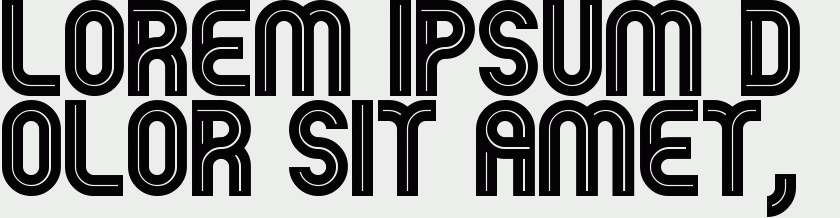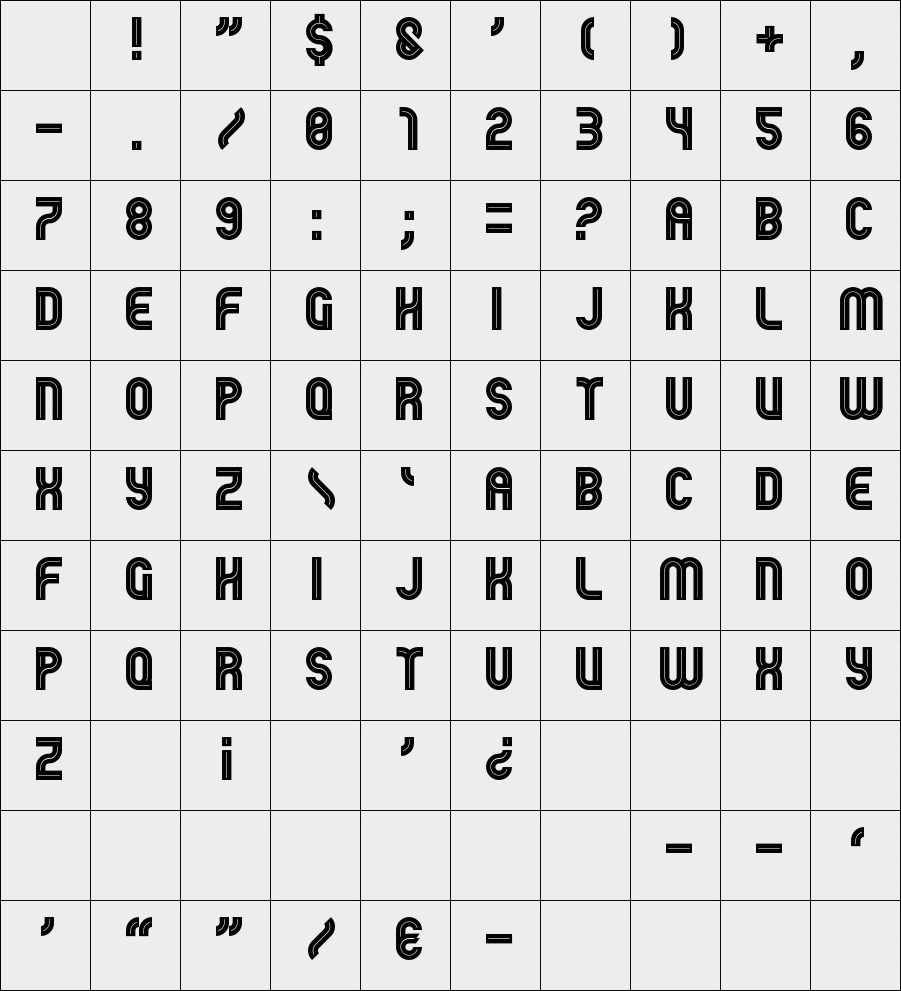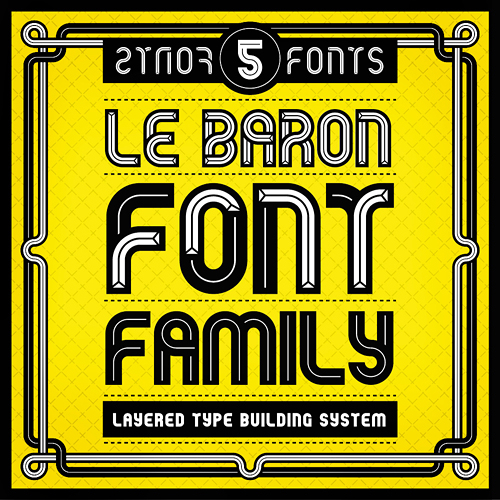
Le Baron Font Family
/ Le Baron Steel
Between 1884 and 1885, William Le Baron Jenney designed the Home Insurance building, the first every skyscraper in the world, as part of the project to rebuild Chicago following the devastating fire which destroyed much of the city in 1871. From then onwards, steel and glass were to become part of the skyline of major cities across the globe. Le Baron Font Family is intended to pay homage to the pioneers of this model for modern urban life that we know today. And, just like those original constructions, it represents a family of fonts that are combined to obtain some surprising graphic results.